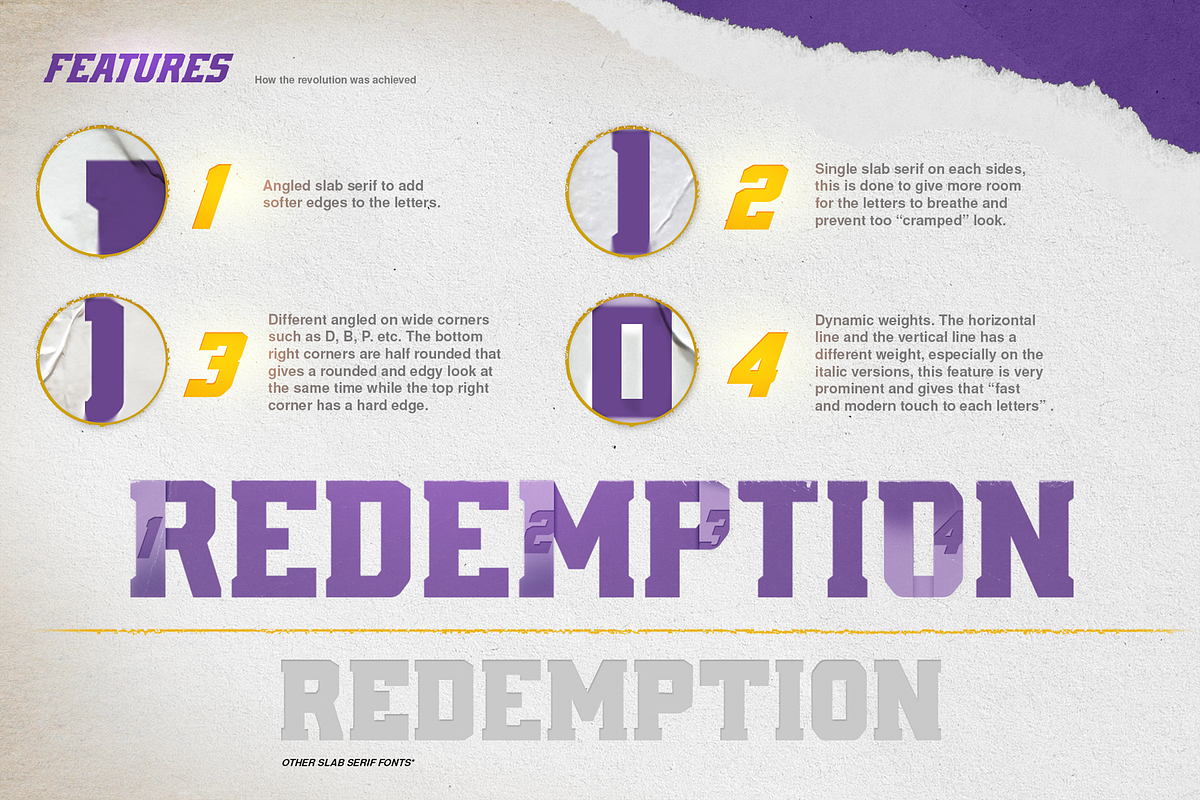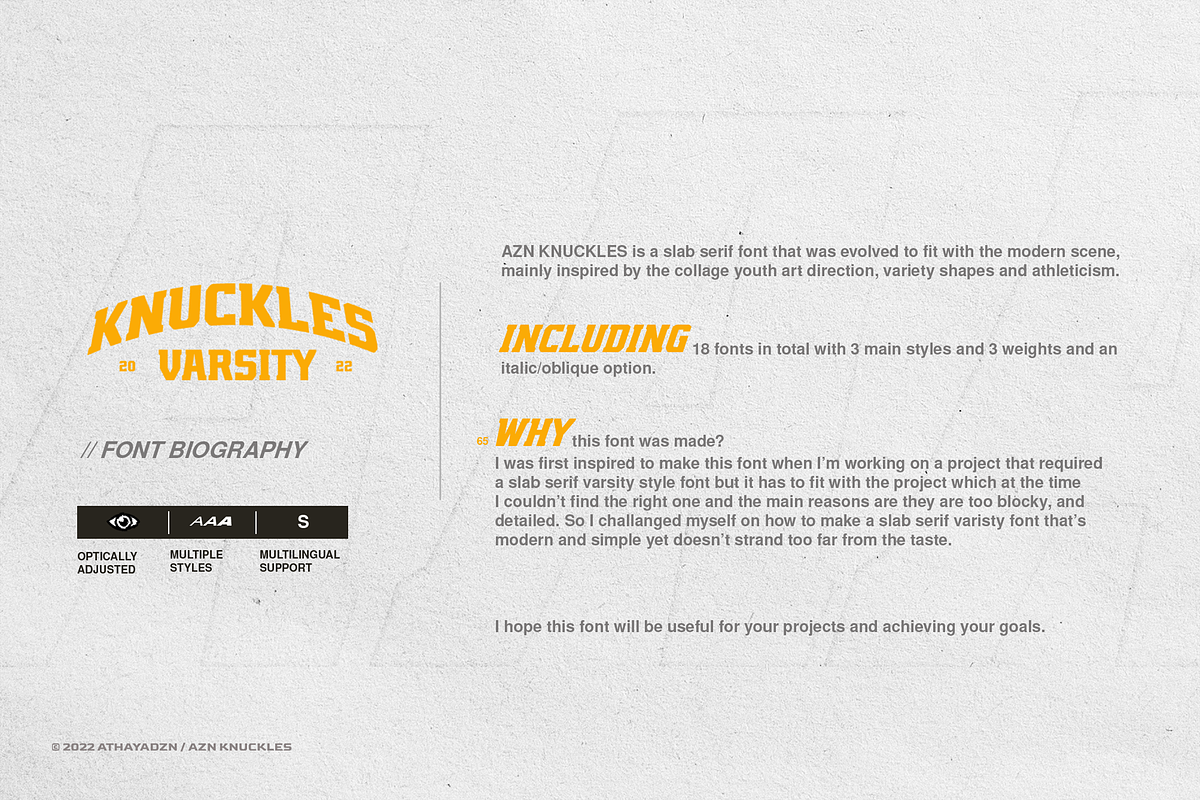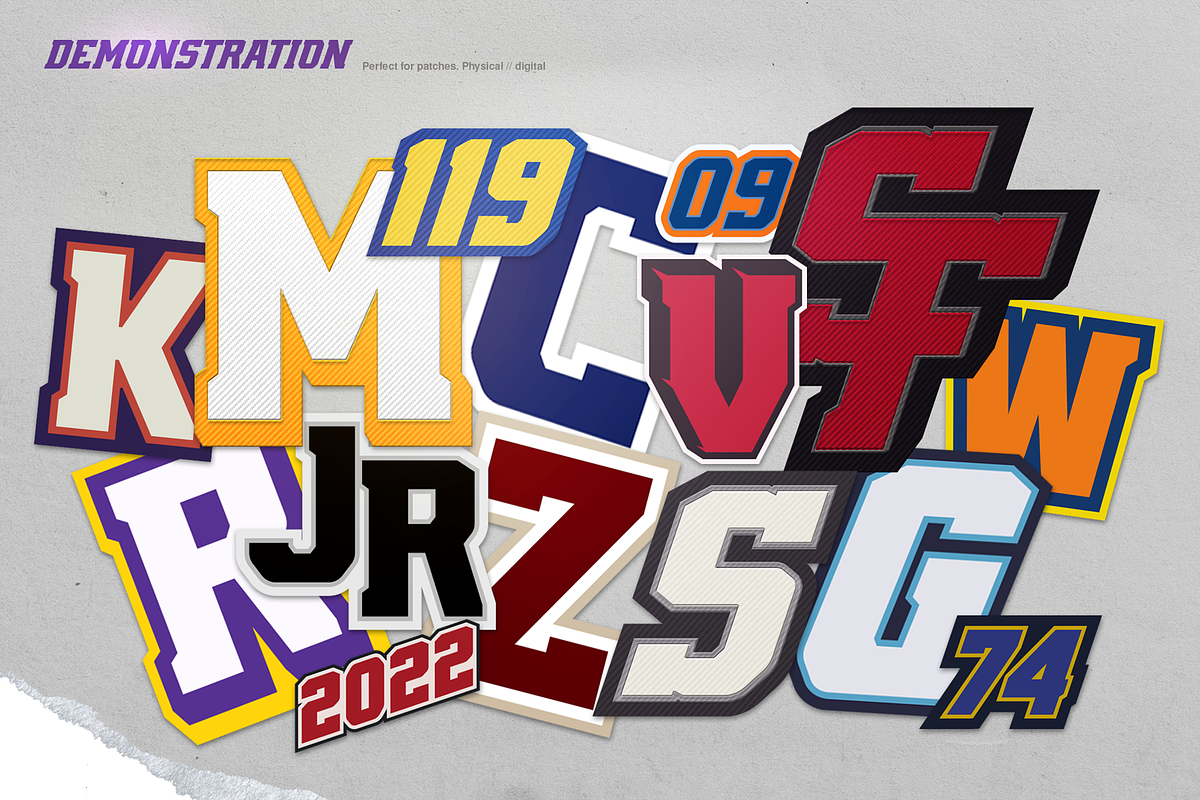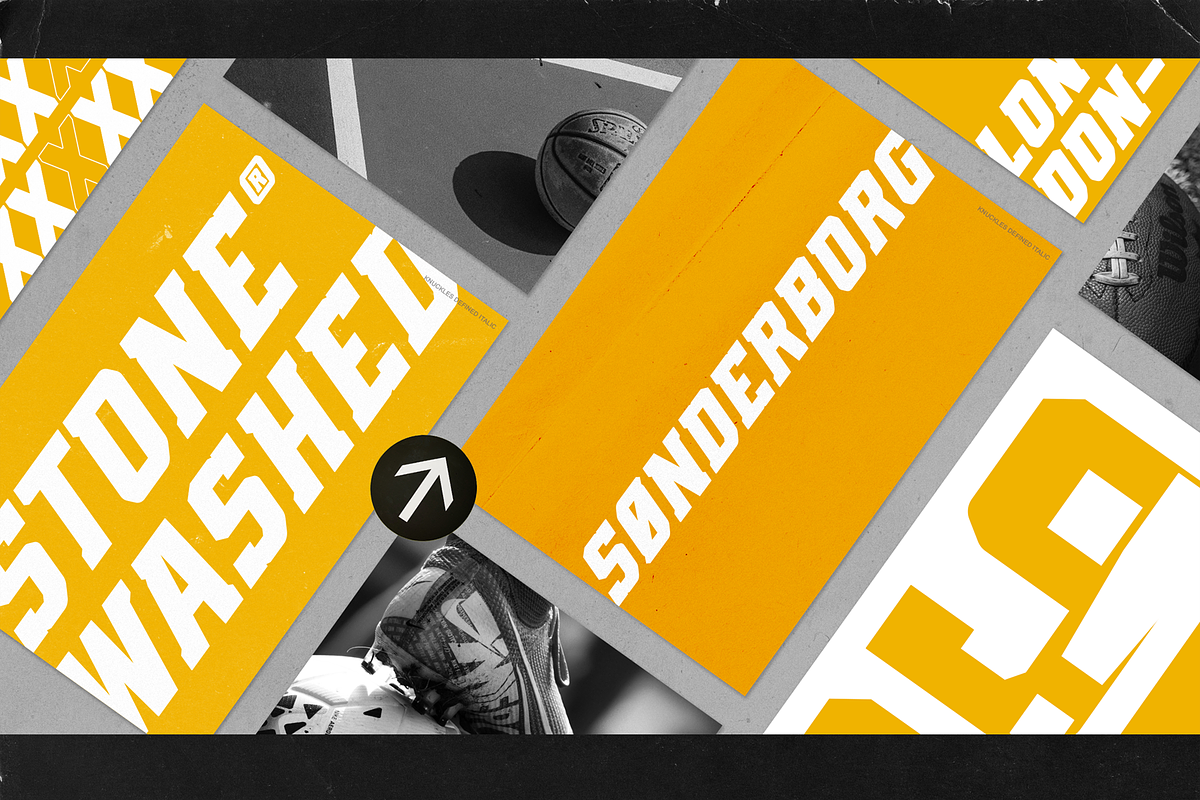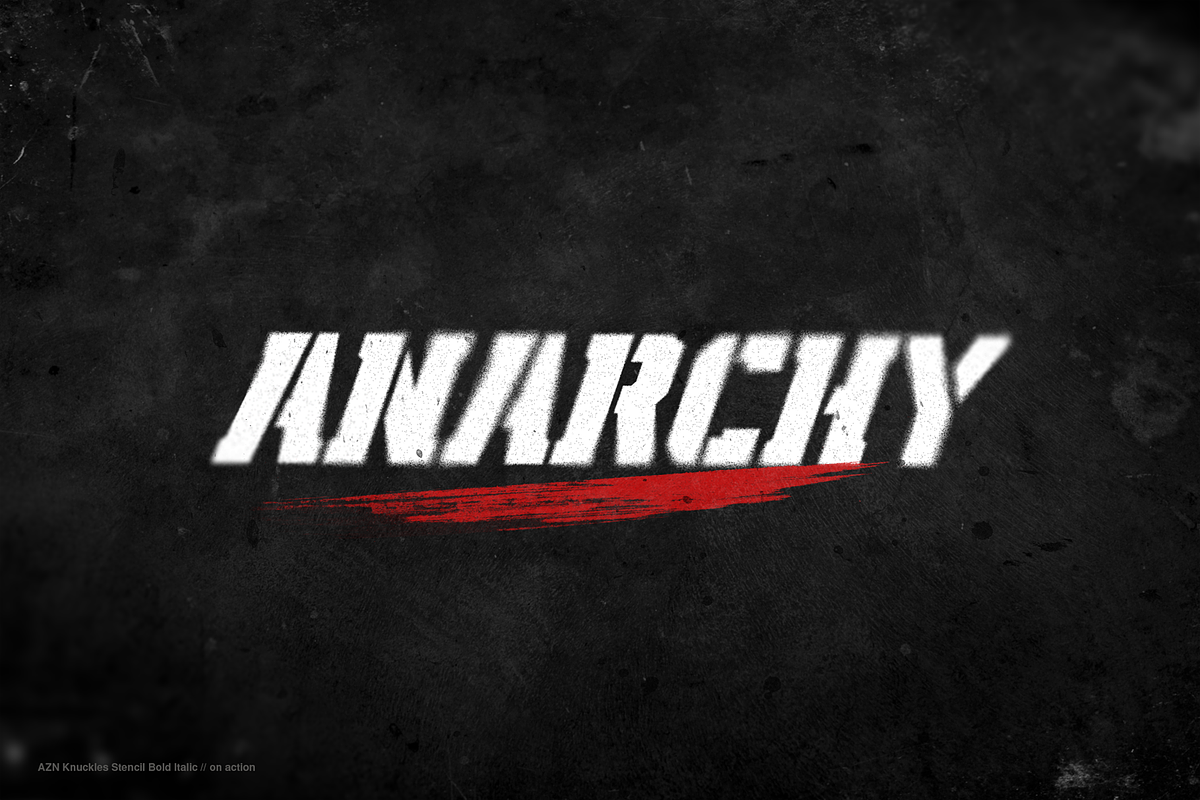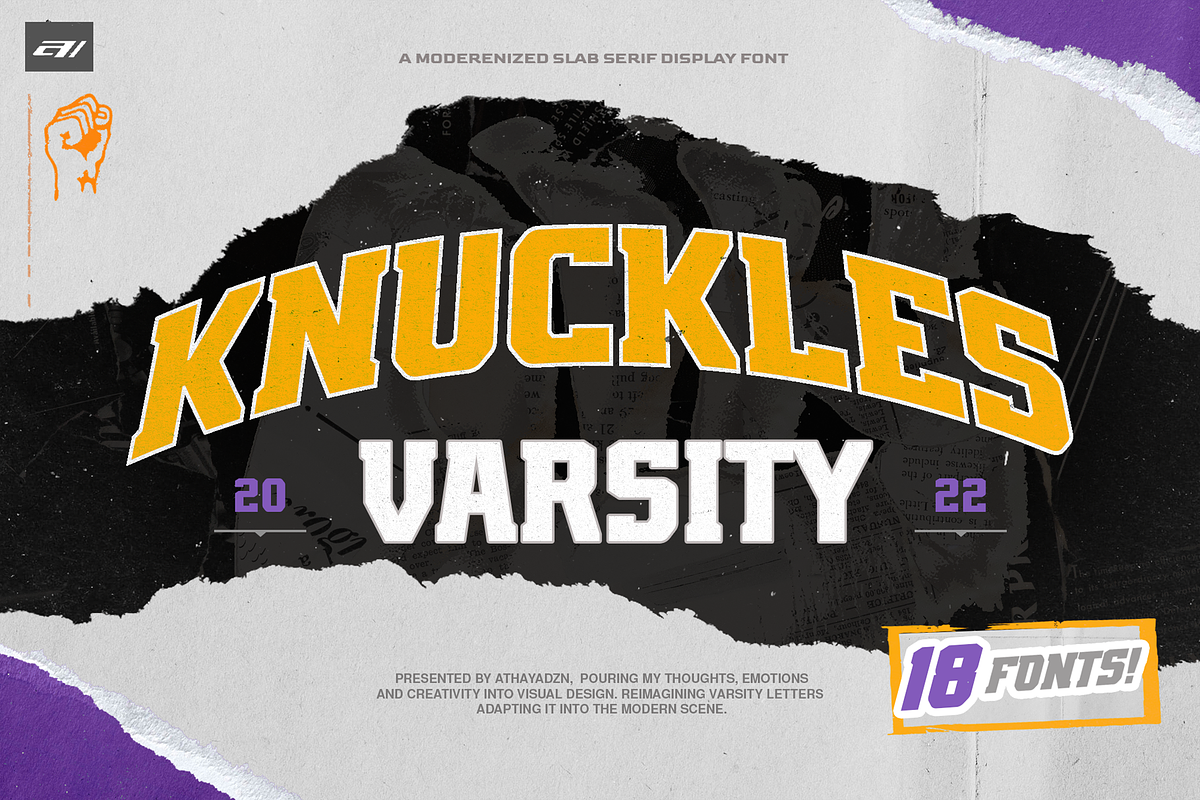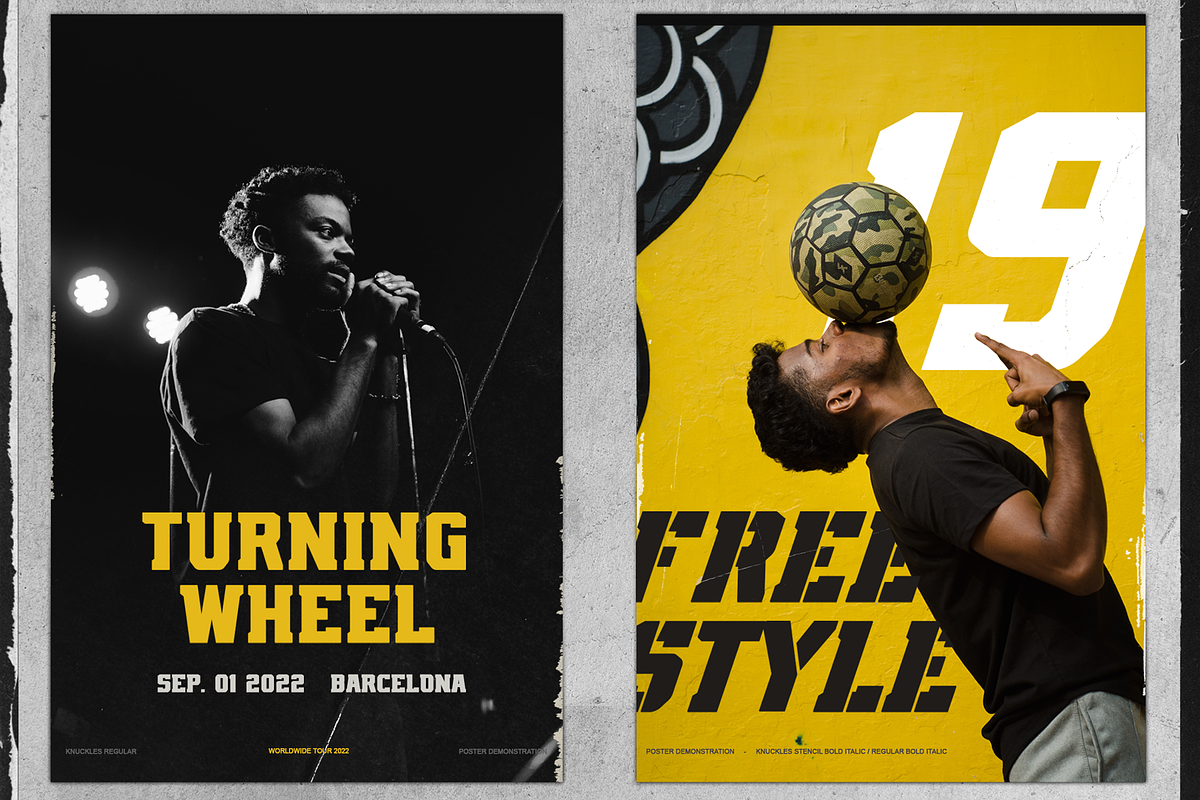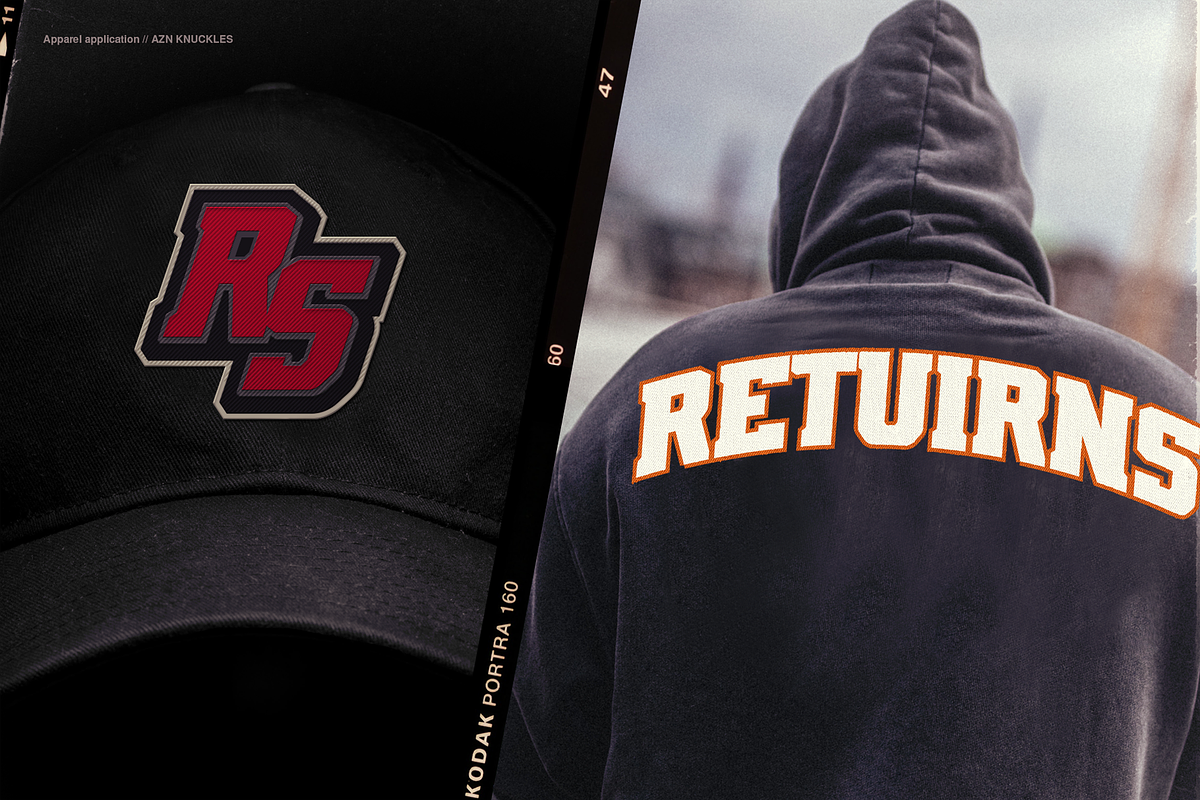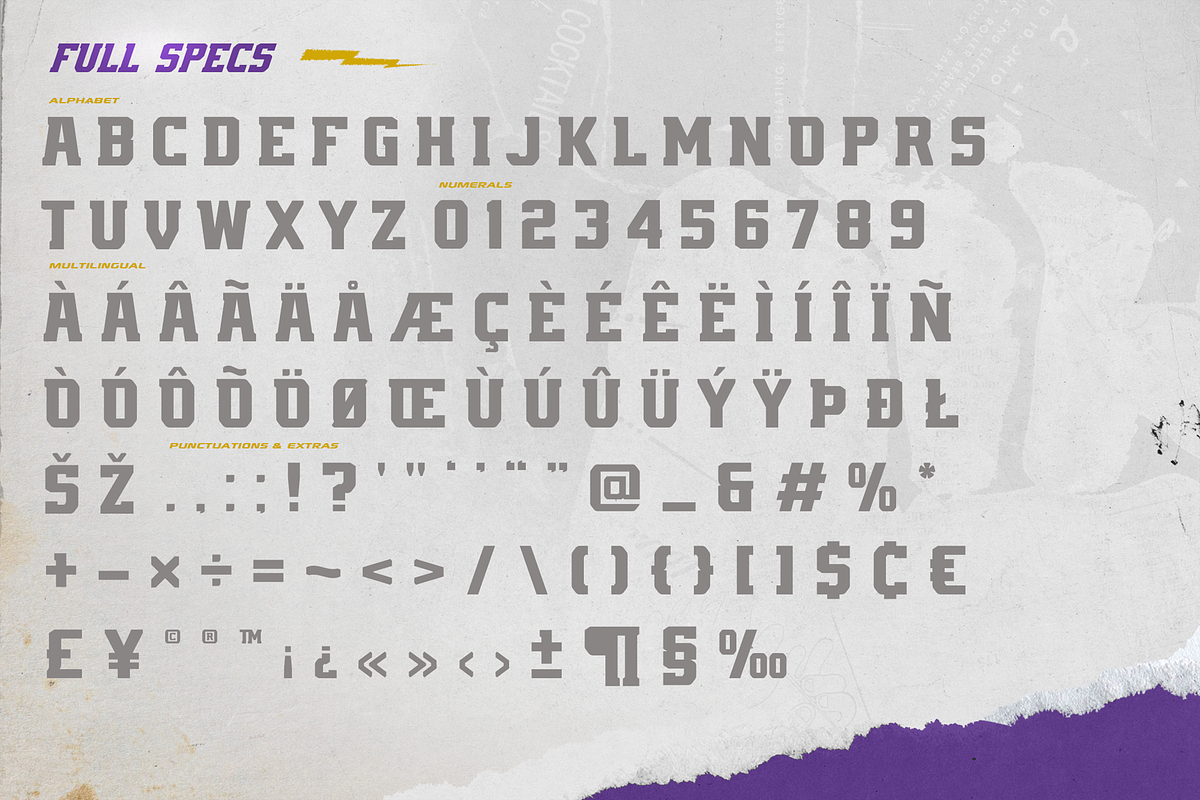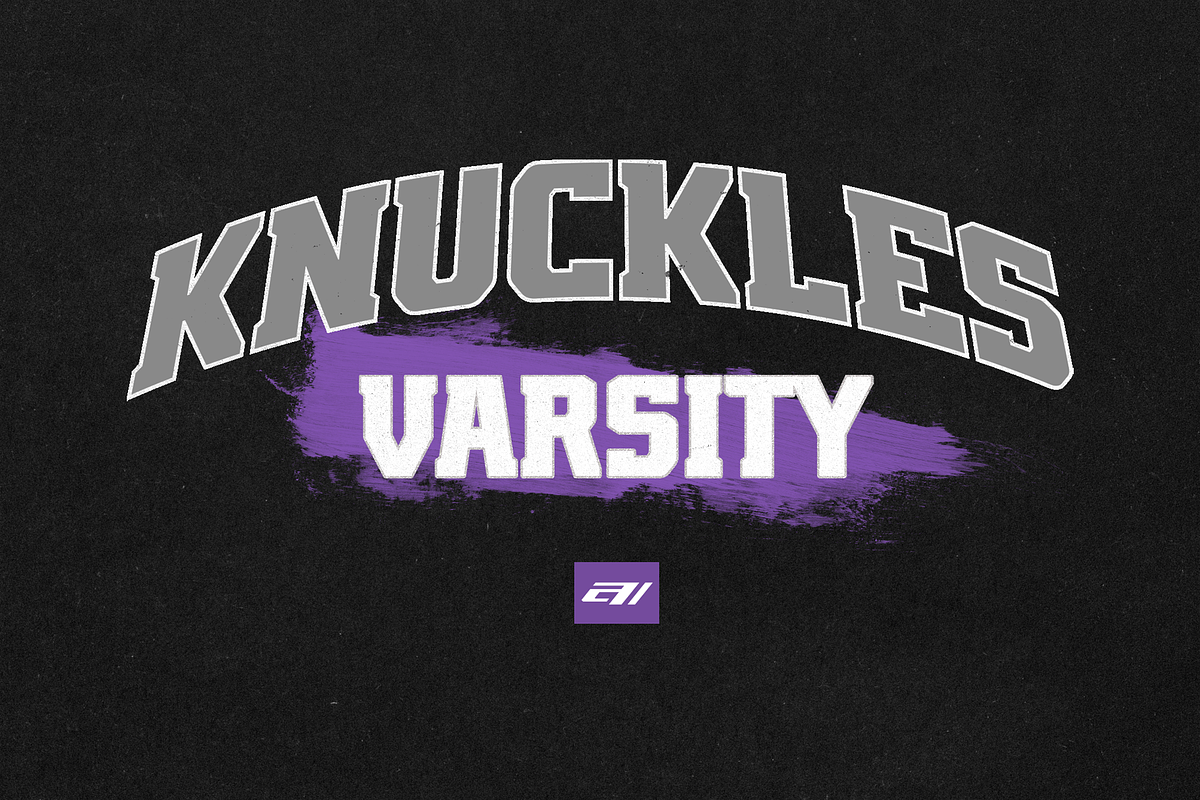
AZN Knuckles Varsity
Introducing "AZN Knuckles Varsity" font by AthayaDZN. Revolutionizing a varsity slab serif, combining sharp and rounded edges, angled serif, and a variety of weights, fitting it into the modern scene.
Equipped with 3 styles ( Defined, Regular, Stencil )
Use the Defined version if you are aiming for that slab serif look, just like the name suggested, it defines the modernized slab serif on each letter, giving it that retro look yet still in the modern scene. Especially on the light weight of this version, the slab serif is really prominent.
Use the Regular Version if you are aiming for any type of design that you see this font fits especially the modern scene, just like how it's advertised.
Use the Stencil version if you are aiming to make a statement, my favorite one is the Bold and Italic version of the Stencil if I was to make a statement, just like the preview where it says "Anarchy", the separated shapes of the letter combined with it's bold and slanted shape is perfect to make a strong statement